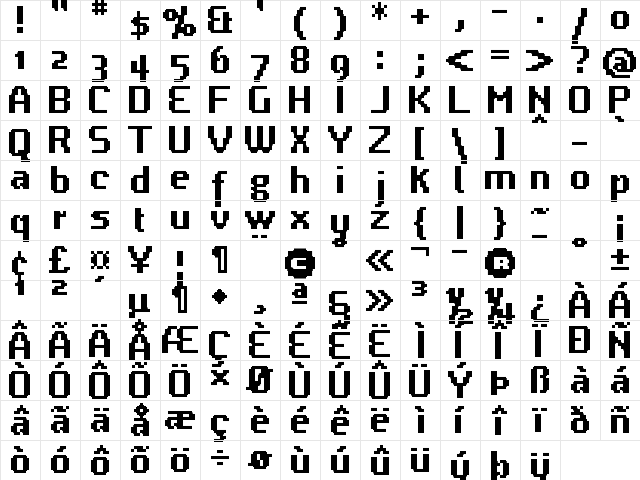
UF PT Bossa Duo Bold Regular
Design Context for UF PT Bossa Duo Bold Typeface
UF PT Bossa Duo Bold takes a measured approach to typography — its balanced proportions and neutral character make it a reliable workhorse for both digital and print work. Its bold stroke weight gives it real presence on the page.